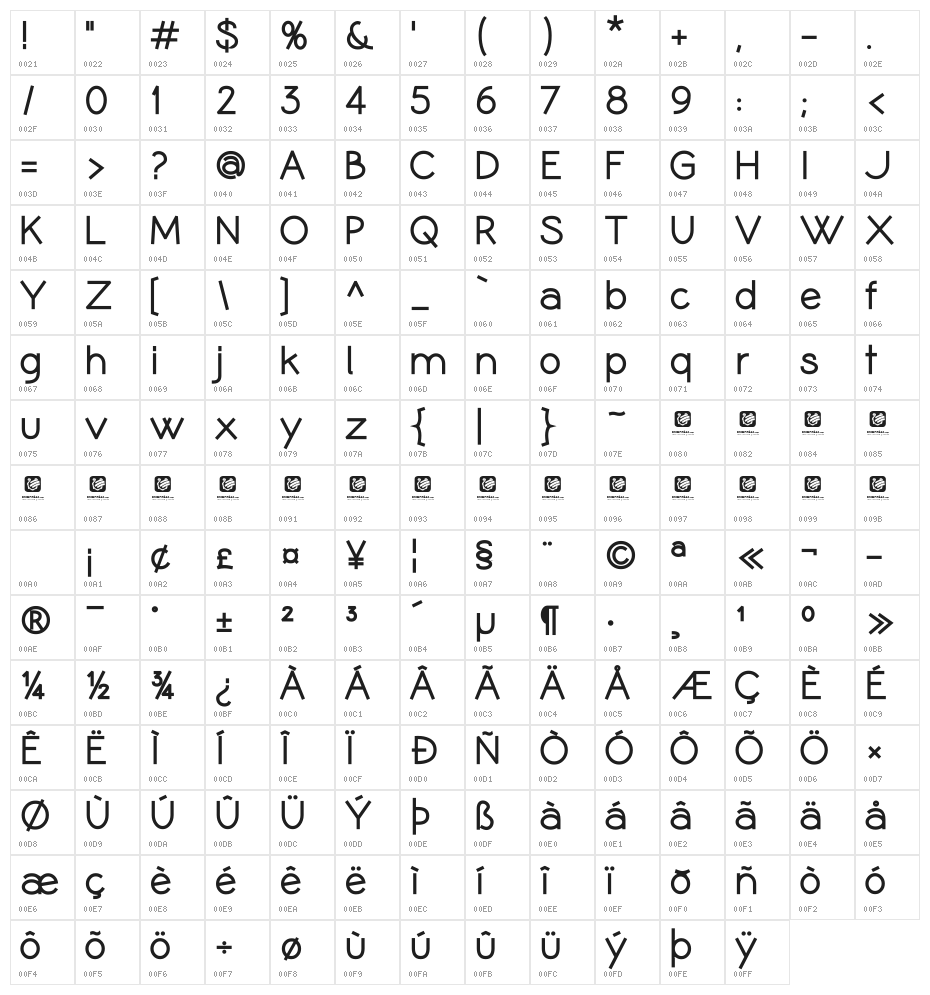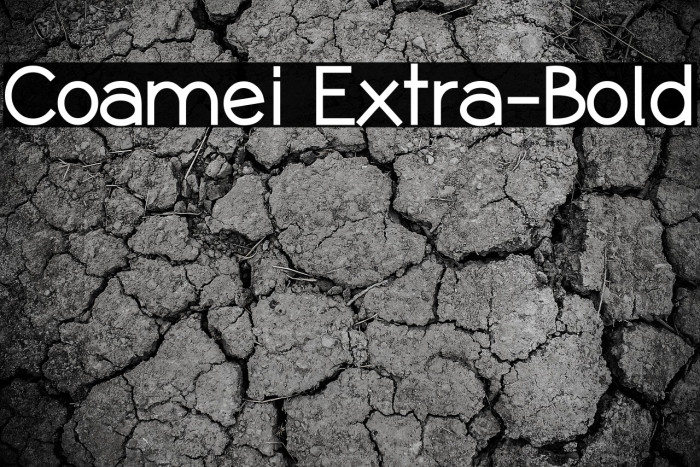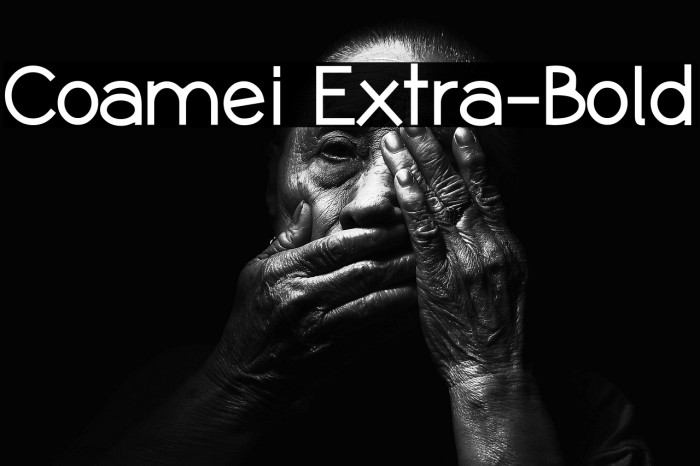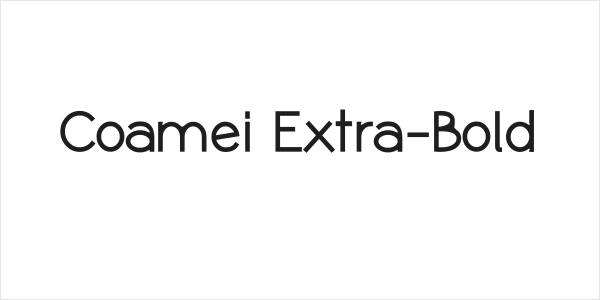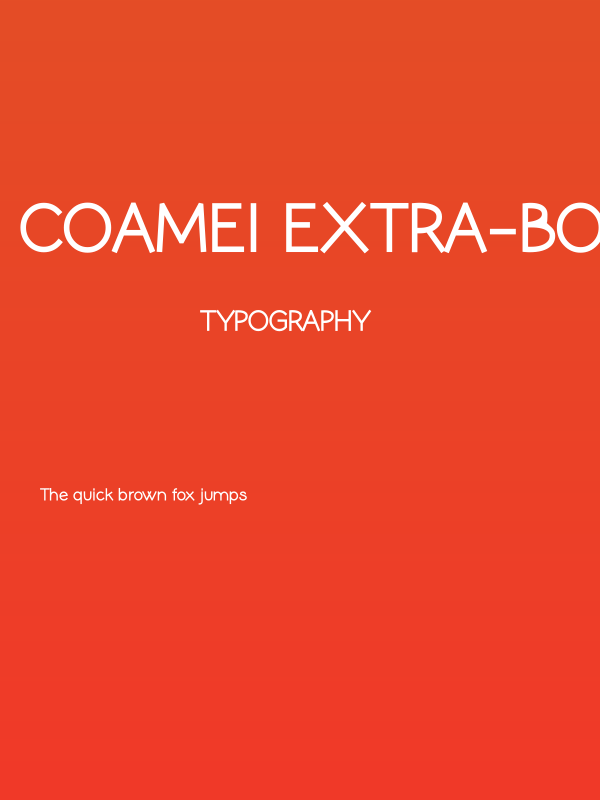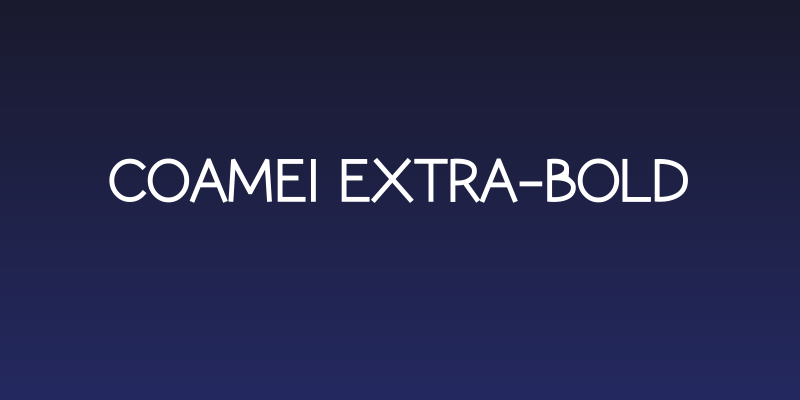
Coamei Extra-Bold Font
Coamei Extra-Bold Description
This typeface features a clean and modern design with a geometric structure. The characters are well-balanced, with consistent stroke widths that give it a uniform appearance. The uppercase letters are bold and impactful, while the lowercase letters maintain a smooth and rounded form. The numerals are clear and legible, making them suitable for various applications. Special characters are included, providing versatility for different design needs. Overall, this font exudes a contemporary and professional vibe, making it ideal for digital and print media.
| Use Case | Headlines, Logos, Digital media |
| Proposed Projects | Ideal for branding, advertising, web design, and editorial layouts. |